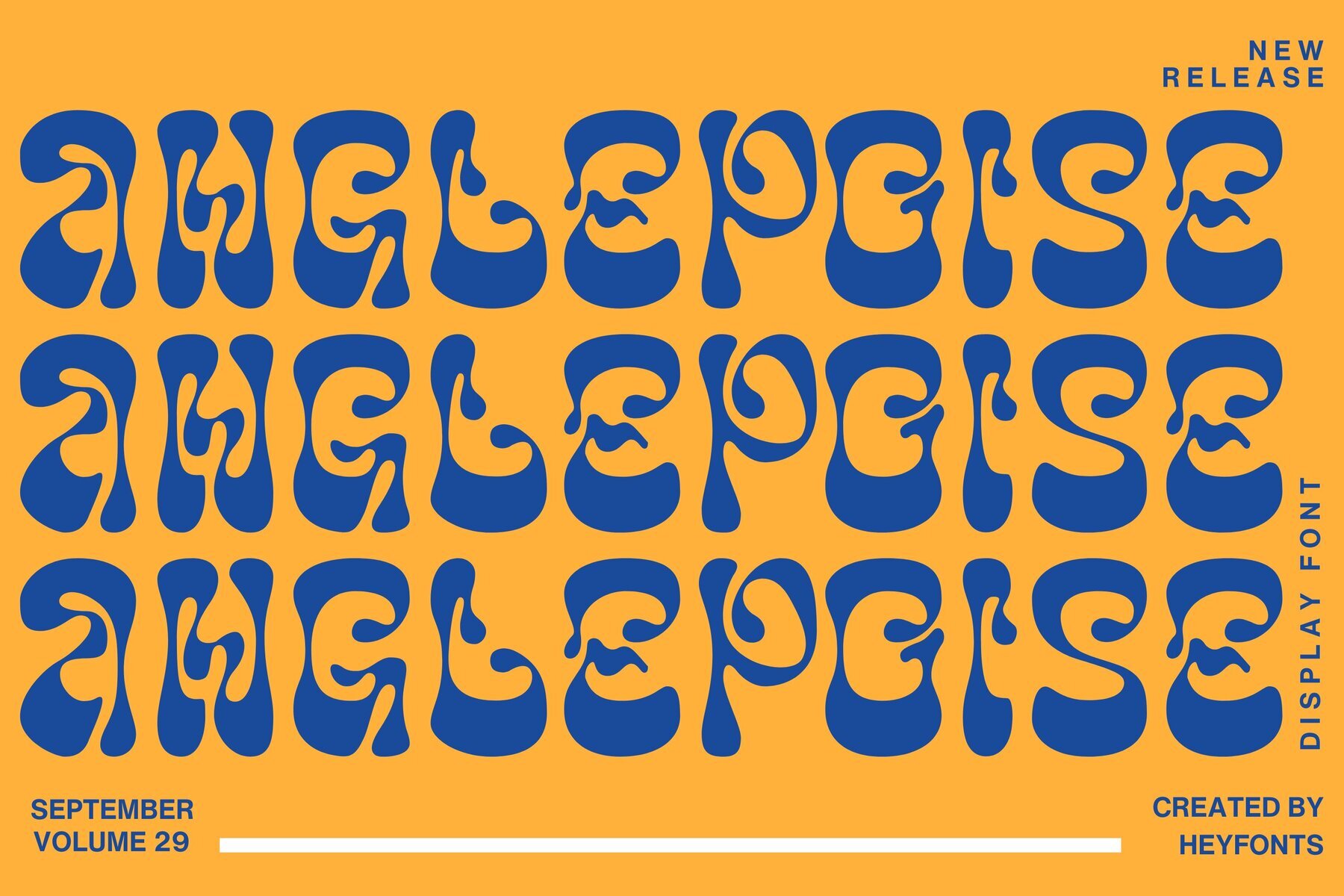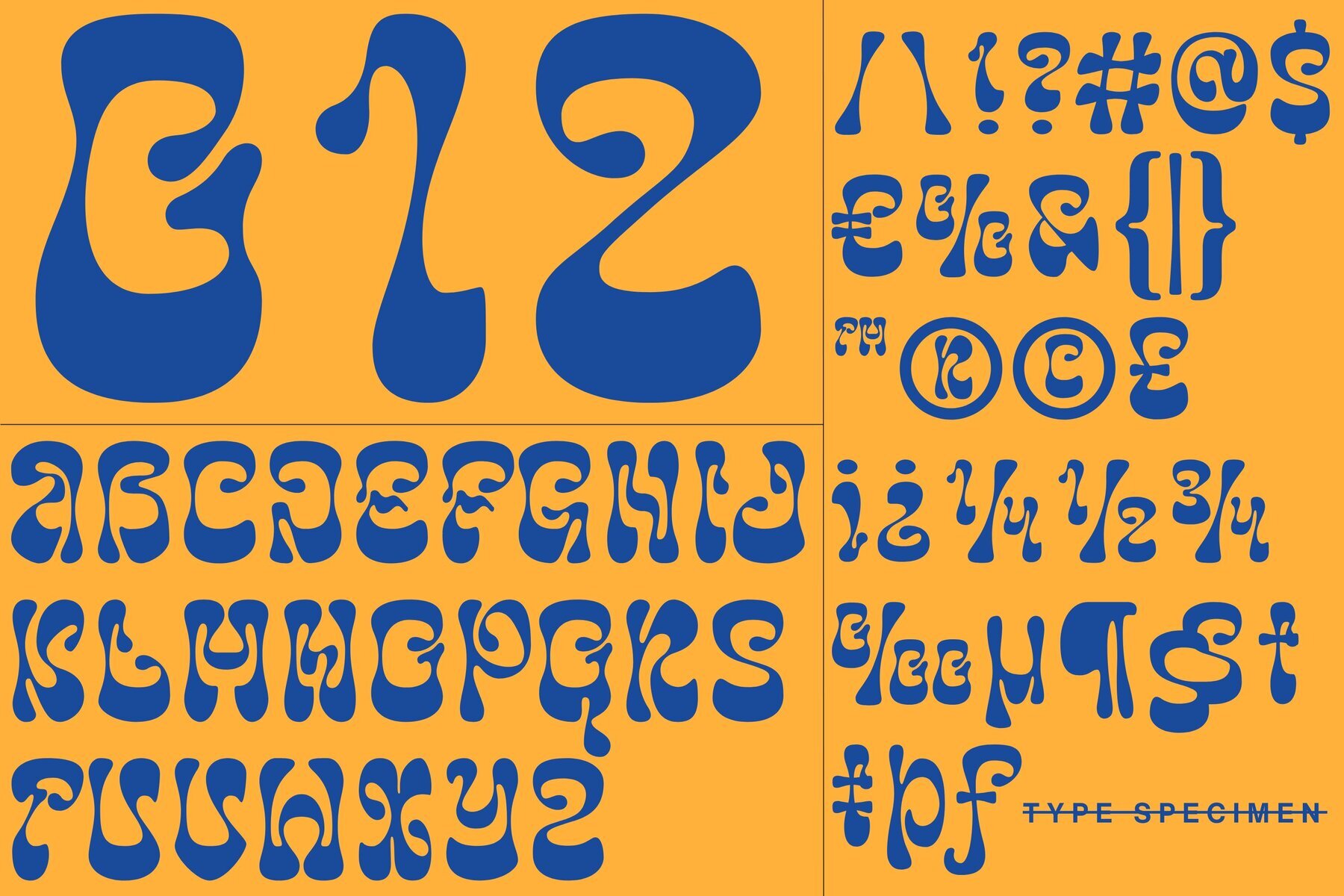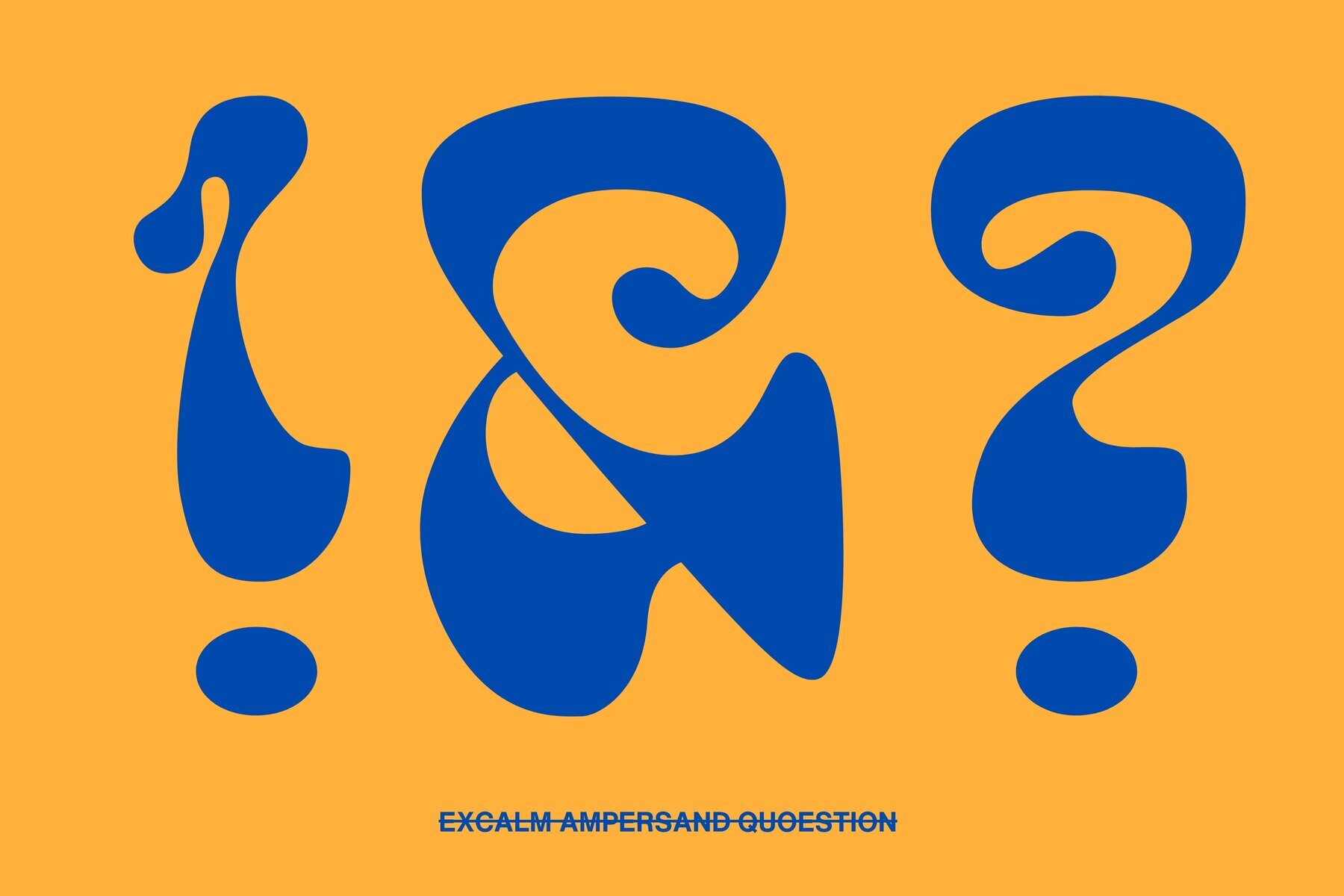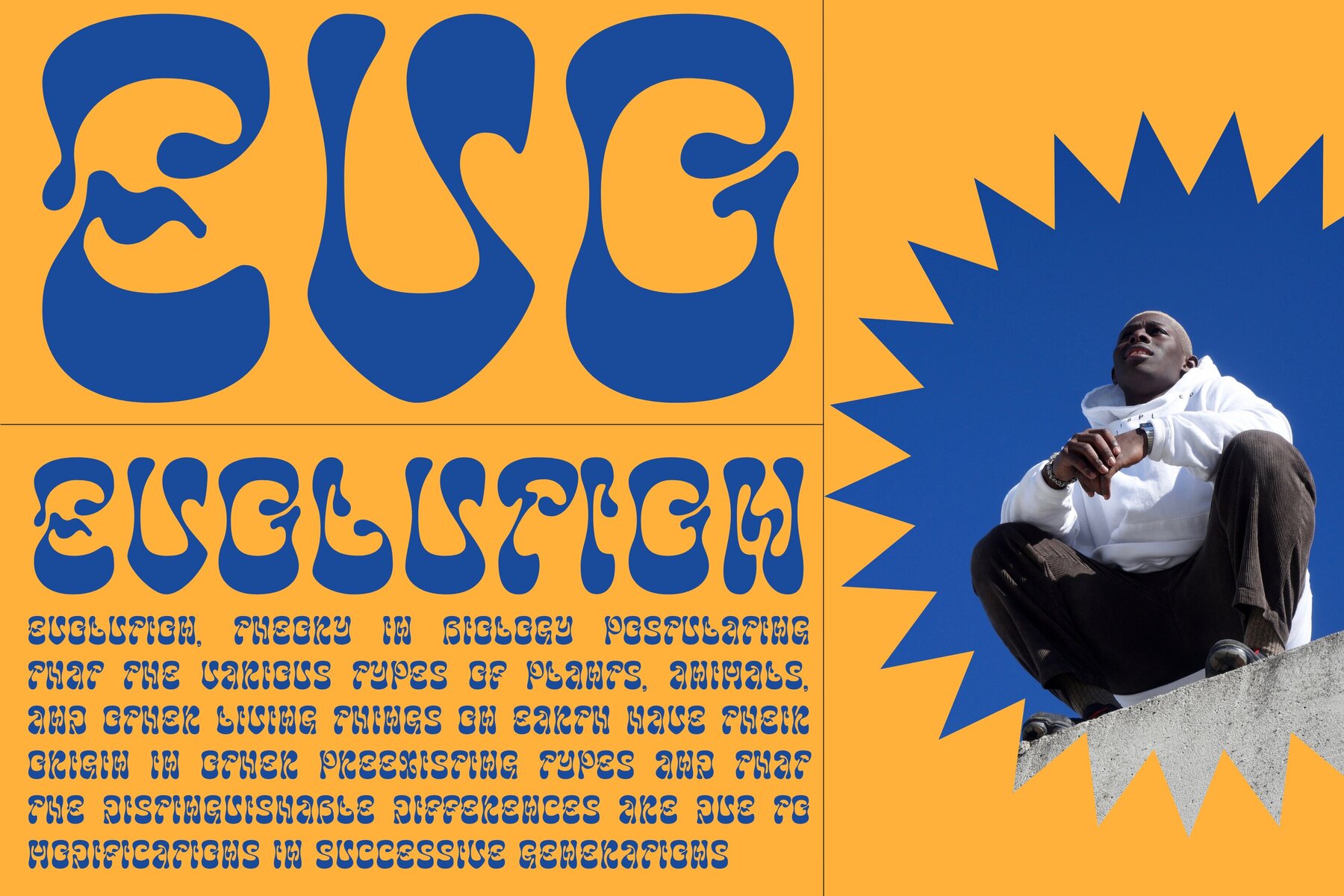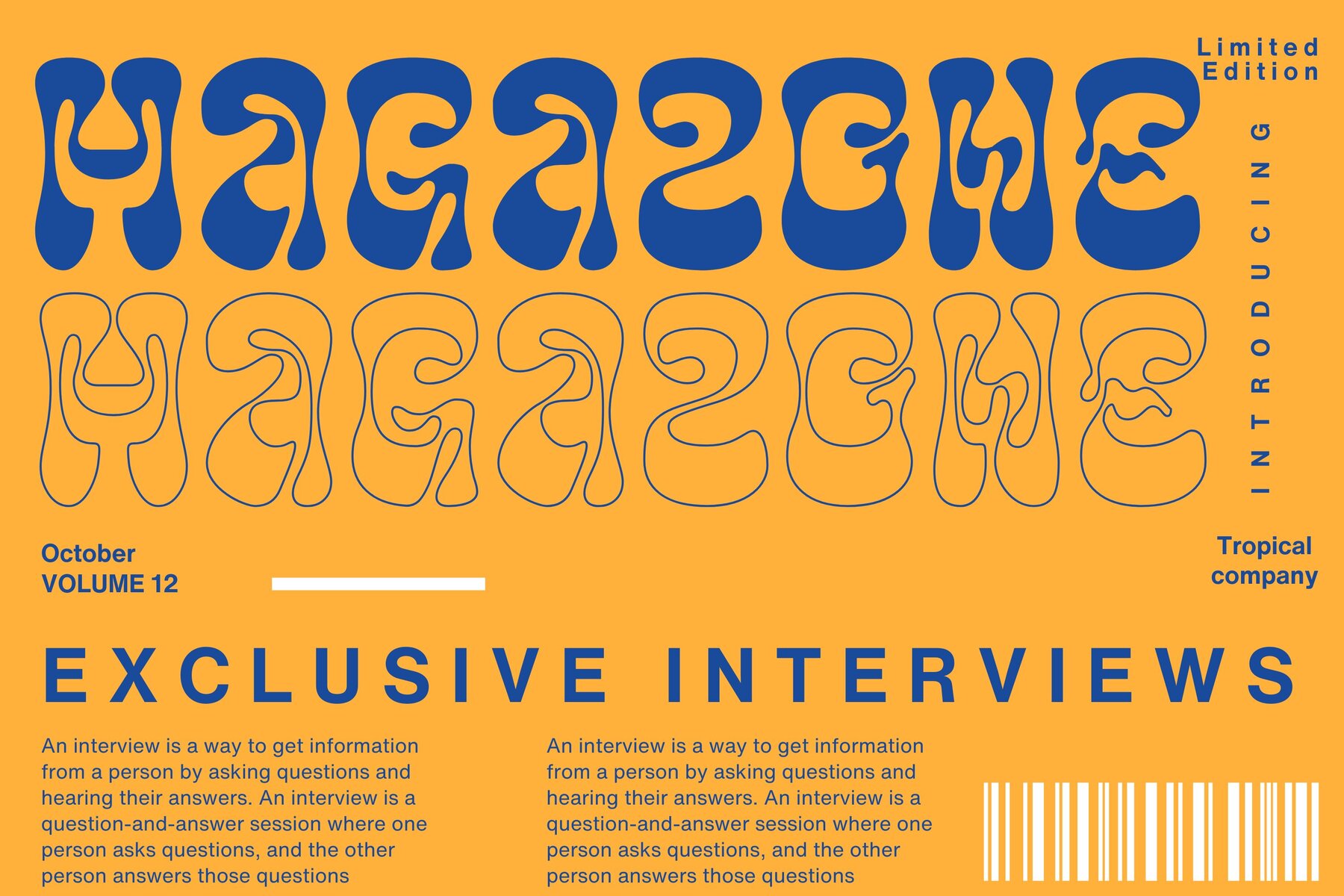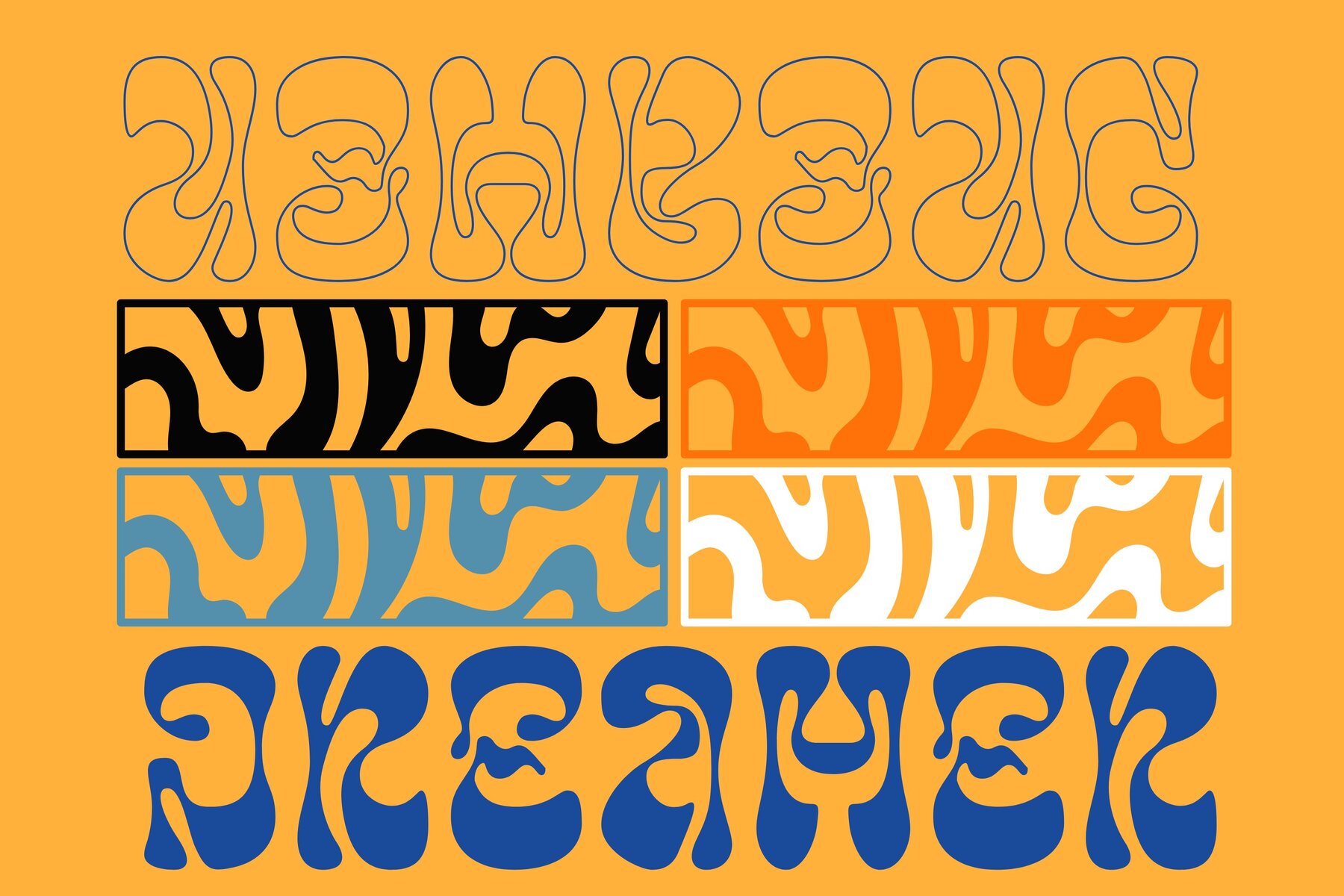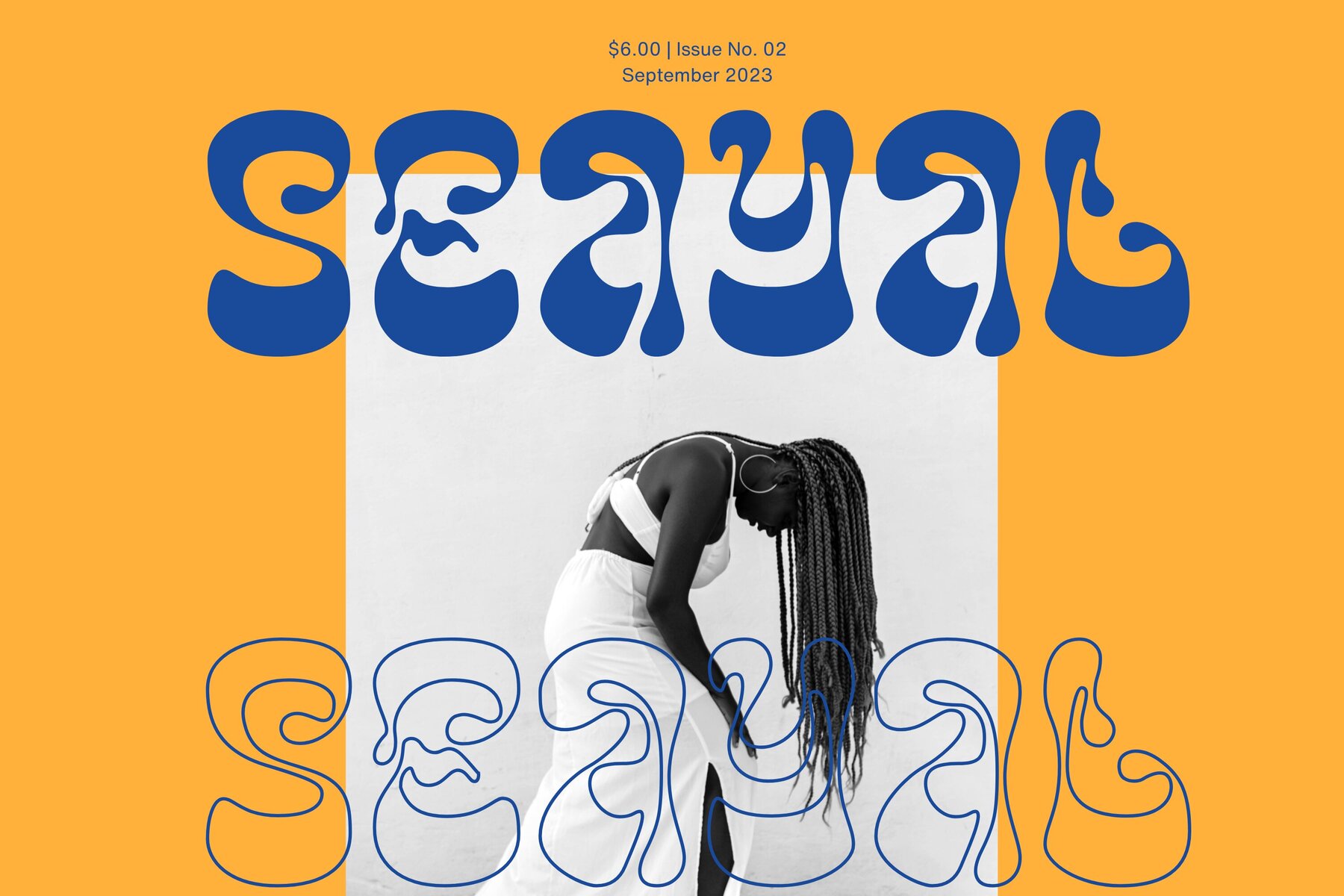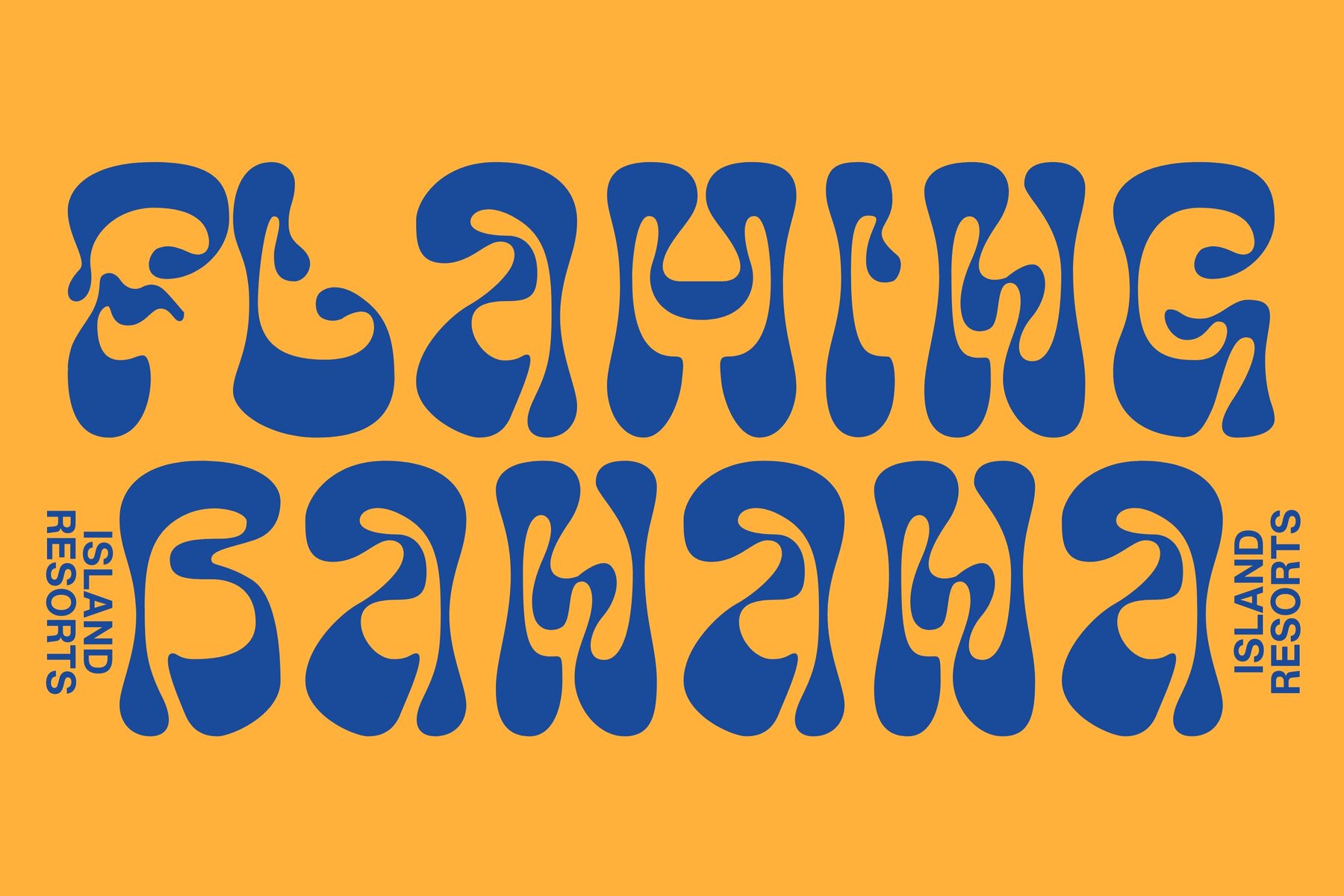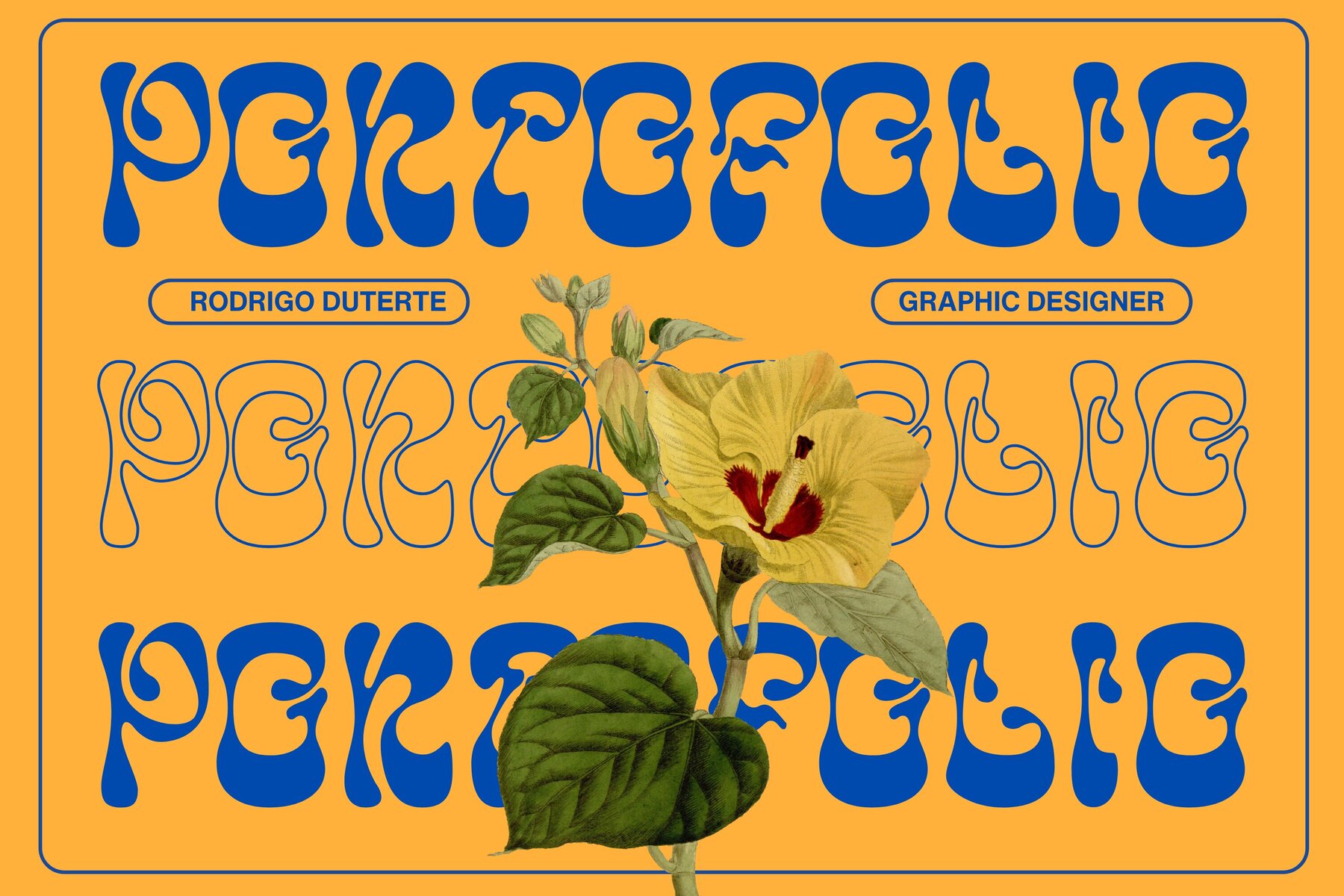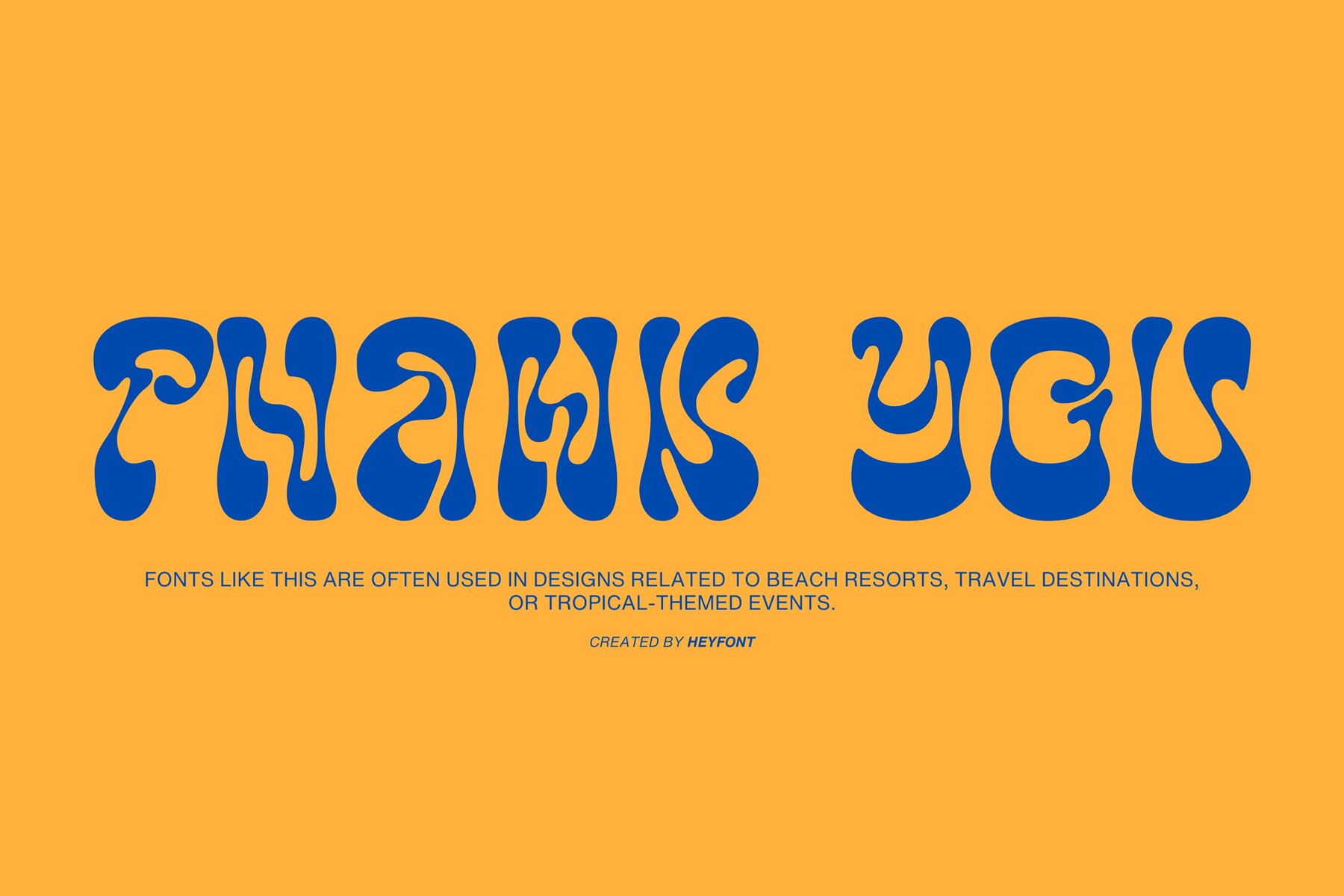
Anglepoise Font
Anglepoise Regular
The Anglepoise font by Heyfonts blends organic and flowing design elements, capturing the essence of nature with curves and shapes reminiscent of palm fronds, waves, or exotic flowers. This typographic approach brings a sense of fluidity and movement, making it a standout choice for various design projects. If you're seeking a font that embodies a tropical or exotic feel, the Anglepoise font offers characteristics that evoke warmth, relaxation, and the natural beauty found in tropical environments. The Anglepoise font captures the flowing and organic design elements typical of tropical themes. Its forms borrow the natural curves and shapes seen in nature, imbuing the typography with a dynamic sense of movement.Anglepoise: Exuding Tropical Elegance
Ideal for Tropical Aesthetics
Organic and Flowing Design